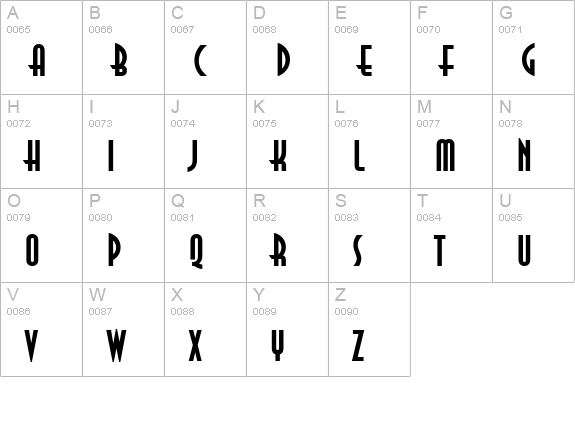
Asia Bold is a strong, high-contrast variant in the Asia typeface family \xE2\x80\x94 well suited to headlines, attention-grabbing titles, and strong calls-to-action.
Asia Bold font is a stylish and modern typeface that exudes confidence and sophistication. Its bold and striking design makes it perfect for grabbing attention and making a statement in any project. With clean lines and a sleek appearance, Asia Bold font is versatile and can be used for a wide range of design purposes, from branding to editorial design. The best part? Asia Bold font is available for free download at FontsMarket.com. This means you can easily access this stunning font and incorporate it into your projects without any cost. Don't miss out on this fantastic opportunity to add a touch of elegance and flair to your designs with Asia Bold font. Download it now and elevate your work to the next level!